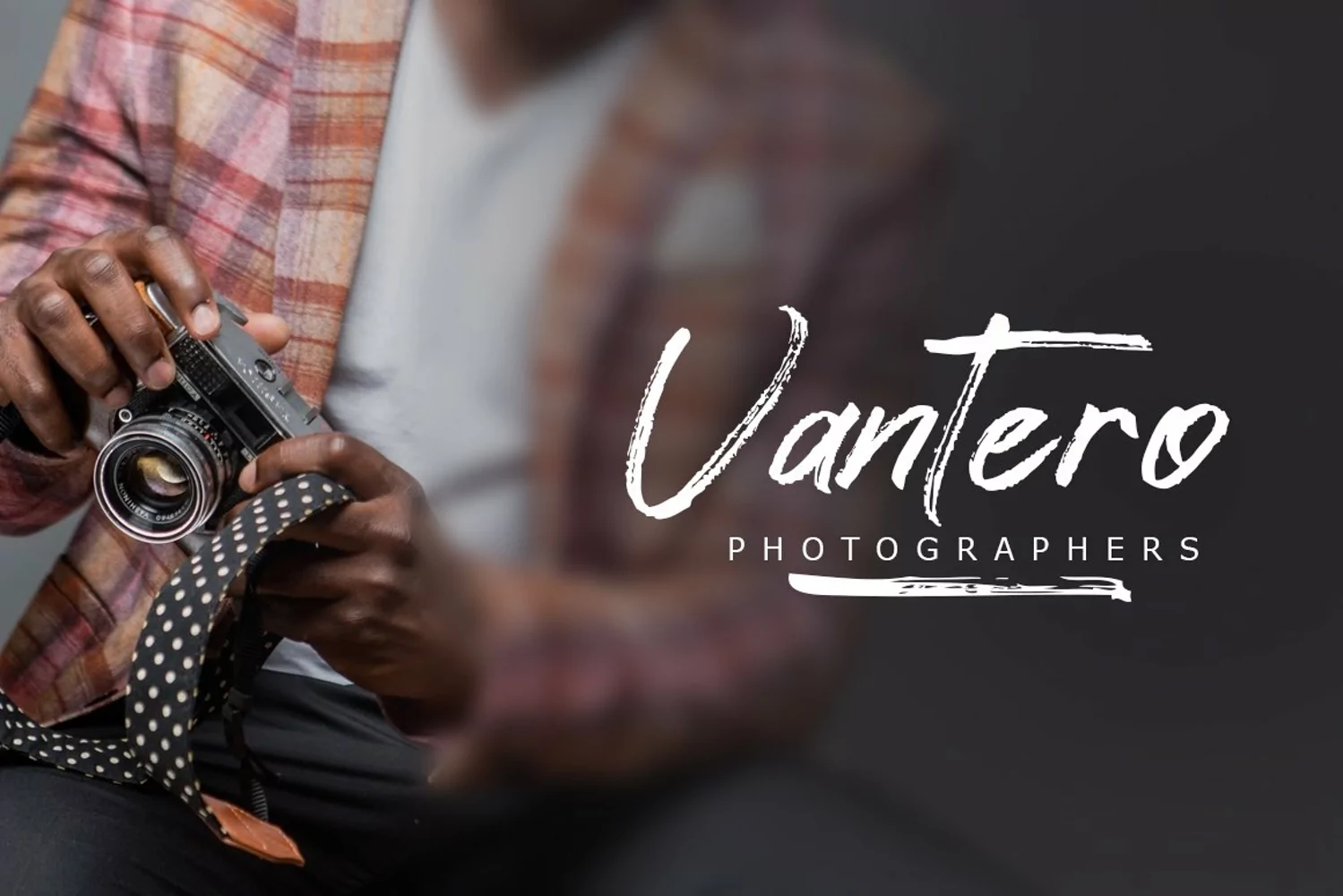
Bigtimes - a Modern Signature Font
Introducing, Avture a font modern calligraphy typeface for your great project. Avture font suitable for logo, branding, greeting card, poster and any design that you create.